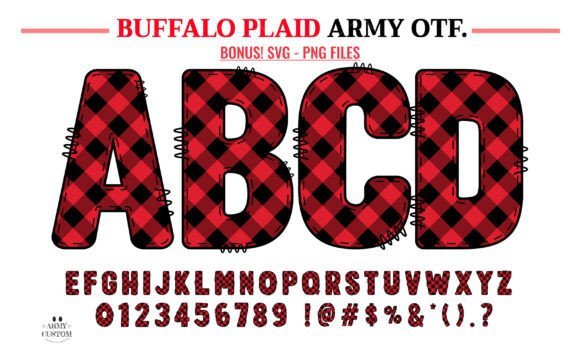
Deck the Halls with the Cozy Charm of the Buffalo Plaid Army Font
As the snowflakes start to fall and the fireplace crackles to life, I find myself rummaging through old family albums, reminiscing about Christmases past. It’s during these moments that I’m reminded of the magic that lies in the little things – the twinkling lights, the warmth of a crackling fire, and the simple, yet endearing, charm of a well-placed plaid pattern.
Enter the Buffalo Plaid Army Font, a delightful typeface that embodies the essence of a rustic, yet elegant, holiday celebration. This font is perfect for adding a touch of festive warmth to your designs, whether it’s a Christmas card, a gift tag, or a social media post. As a designer, you’ll appreciate the versatility and uniqueness that this font brings to your projects, making it a valuable addition to your holiday design arsenal.
- Unique Characteristics: The Buffalo Plaid Army Font features a distinctive plaid pattern and bold, rugged aesthetic, making it ideal for use in outdoor and action sports branding.
Buffalo Plaid Army Font Review
Overall, I think the Buffalo Plaid Army Font is a fun and quirky addition to any design project. ✨ It’s perfect for those who want to add a touch of rustic charm to their branding or typography. The font’s unique plaid pattern and bold lines give it a distinctive look that’s sure to grab attention.
- Unique and recognizable design: The buffalo plaid pattern is instantly recognizable and adds a lot of character to any text.
- Great for bold typography: The font’s bold lines and large x-height make it perfect for use in headings and titles.
- Can add a touch of whimsy: The font’s playful design makes it a great choice for projects that need a bit of personality.
- May be too bold for some projects: While the font’s boldness is one of its strengths, it can also be overwhelming in some contexts.
- May not be suitable for fine typography: The font’s large x-height and bold lines make it less suitable for use in small text or fine typography.
- Can be difficult to read in certain contexts: The font’s unique design can make it difficult to read in certain contexts, such as in small sizes or in situations where the text is not clearly legible.
Overall, I think the Buffalo Plaid Army Font is a fun and versatile addition to any design project. While it may not be suitable for every project, it’s a great choice for those who want to add a touch of personality and whimsy to their design.
To get the most out of Buffalo Plaid Army Font, use it for:
- Outdoor and rustic-themed designs.
- Distressed or vintage-style text.
- Emphasizing bold, rugged messages.
Alternatives to Buffalo Plaid Army Font
Great Vibes is a beautiful, handwritten script font. It’s perfect for creating a fun and casual atmosphere, ideal for invitations, posters, and social media graphics. Compared to Buffalo Plaid Army Font, Great Vibes is more elegant and less bold, making it suitable for a wider range of designs.
Pacifico is a stylish, cursive font that evokes a sense of relaxation and sophistication. It’s ideal for luxury brands, travel, and wellness-related designs. Unlike Buffalo Plaid Army Font, Pacifico is more refined and less edgy, making it perfect for high-end projects.